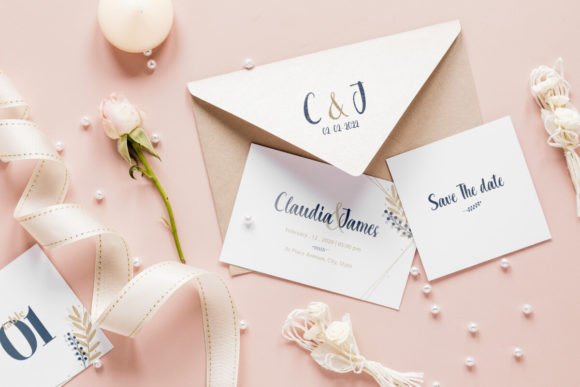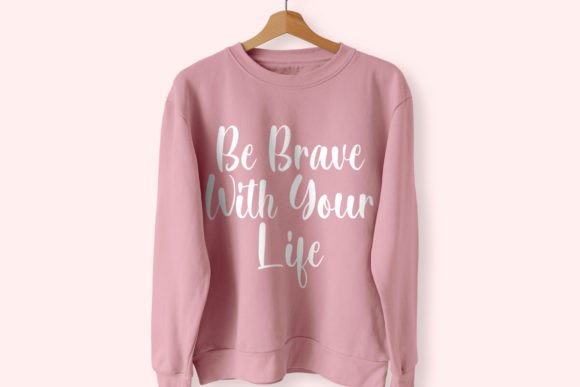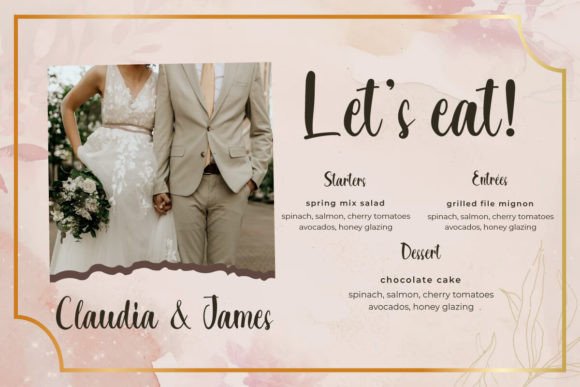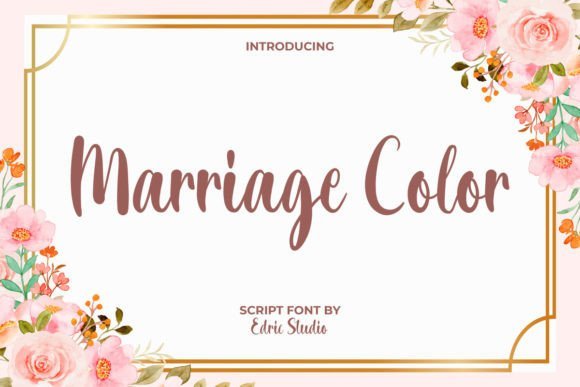
Introduction to Marriage Color Font
Marriage Color Font is a small brush calligraphic script font inspired by other people’s wedding, created by EdricStudio.
This font has the perfect appeal of the dominant use of a thick brush and easy to read making it suitable for any industry, such as clothing brand, cosmetic, food product, event organizer, flower shop, photoshoot, printing, publishing, restaurant, and much more .